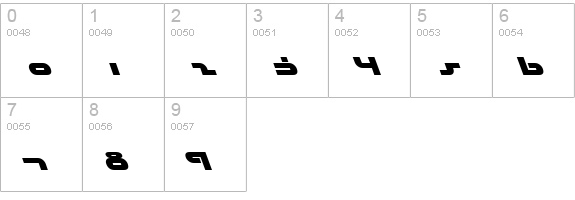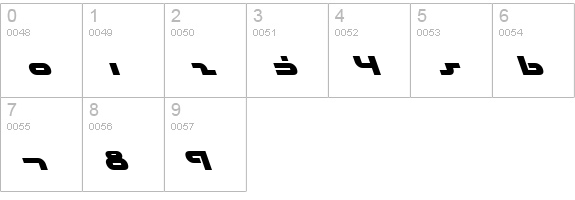
uni-sol left Font Details
Uni-Sol Left Font is a stunning and versatile typeface that adds a unique touch to any design project. With its bold and clean lines, this font exudes a sense of modernity and sophistication. What sets Uni-Sol Left Font apart is its dedication to providing a seamless reading experience for left-handed individuals. Created with careful attention to detail, this font ensures optimal legibility and comfort for those who write with their left hand. Featuring a wide range of characters, including uppercase and lowercase letters, numbers, and various punctuation marks, Uni-Sol Left Font offers endless possibilities for creative expression. Whether you're designing a logo, crafting a headline, or creating a poster, this font will effortlessly enhance your work with its distinct personality. One of the best things about Uni-Sol Left Font is that it is freely available to download at FontsMarket.com. This means that you can easily access this incredible font without worrying about any costs. It's the perfect opportunity to add a touch of elegance and uniqueness to your designs, without breaking the bank. So, why wait? Download Uni-Sol Left Font today and unlock a world of possibilities for your creative projects. Whether you're a professional designer, a student, or simply someone with a passion for beautiful typography, this font is a must-have in your collection. Experience the power of Uni-Sol Left Font and elevate your designs to new heights.